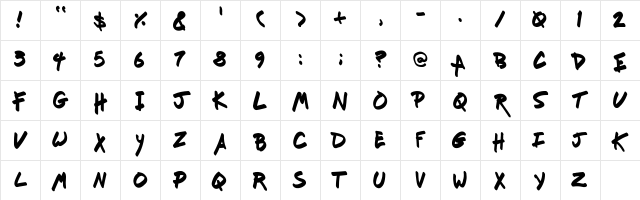
Fresh Marker Regular
Foundry: John Gauthier
Designer: John Gauthier
Design Context for Fresh Marker
Fresh Marker is a composed and adaptable typeface that performs quietly and consistently across a wide range of design contexts.